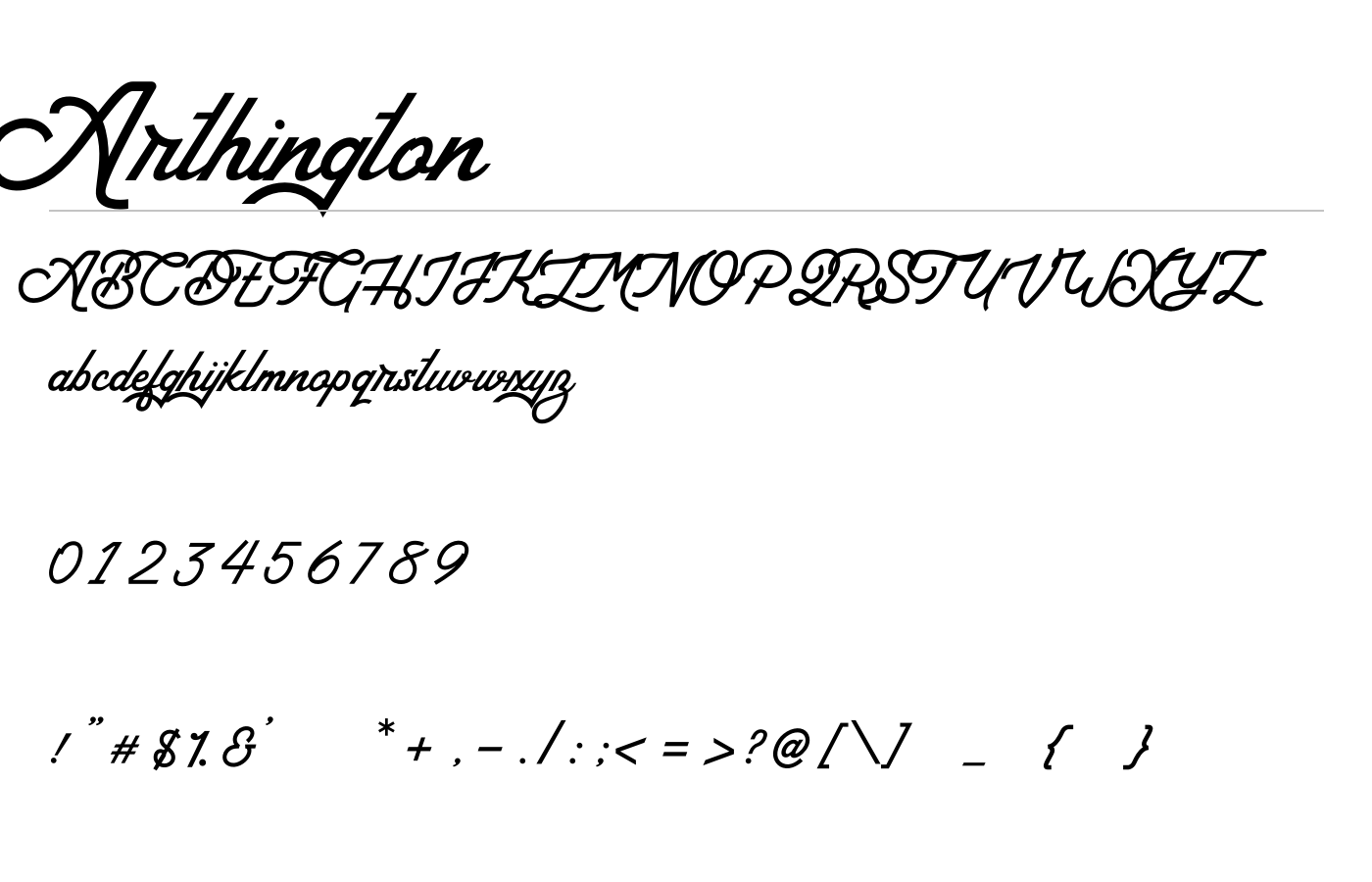
Arthington is an elegant script font featuring graceful, flowing letterforms with a classic calligraphic style. It presents a refined, sophisticated personality ideal for luxury branding, invitations, and decorative headlines where a touch of timeless charm and formality is desired. Its smooth strokes and delicate connections make it perfect for adding a stylish, vintage-inspired flair to any design.
Arthington Font
About Arthington Font
| Font family | Arthington Font |
| Designer | Lettersiro 2018 |